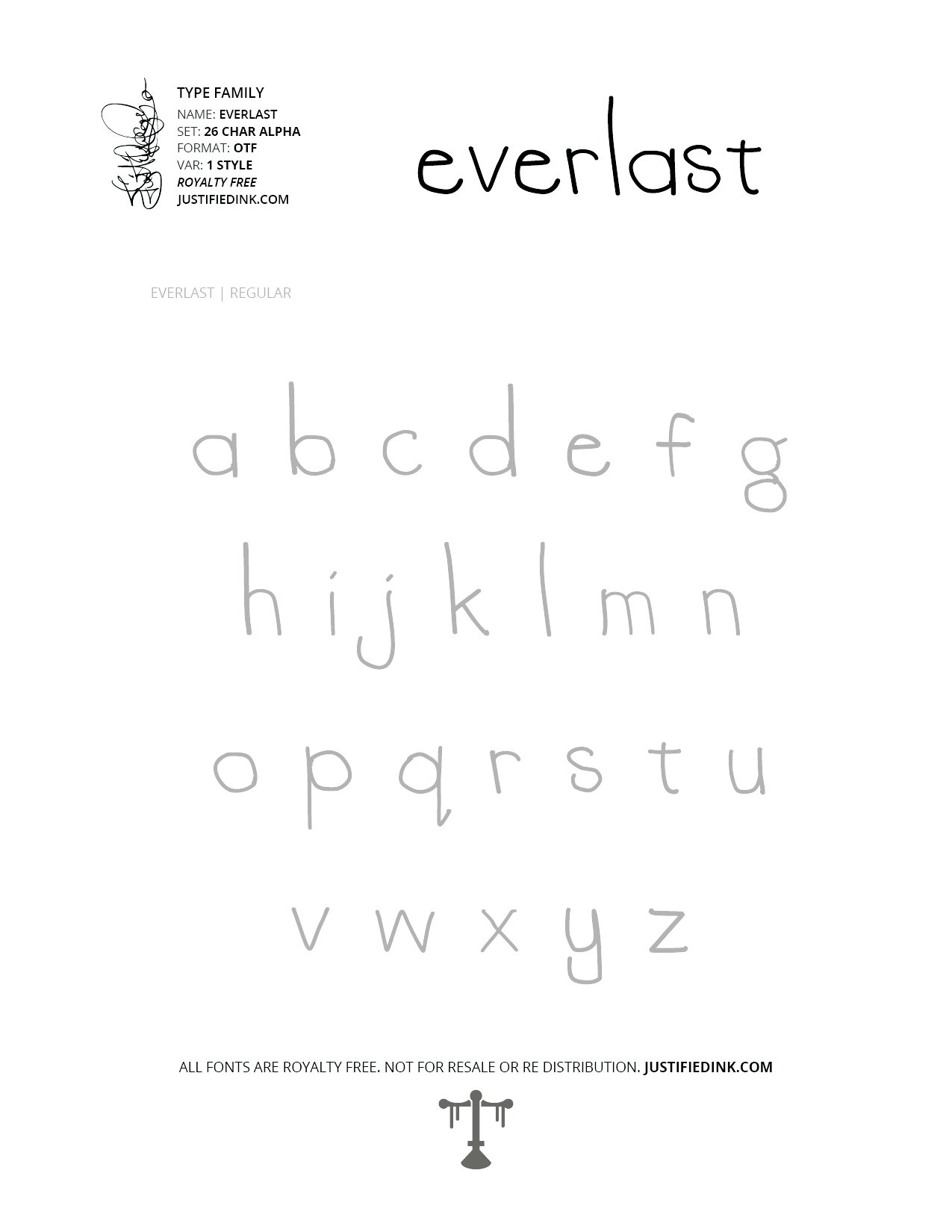
Everlast (1 style) - Custom Font by Justified Ink
NAME: Everlast
Everlast is simply the act of not giving up. Everlast is that indie spirit, the forever underdog who gets back up every time theyre knocked down.
This font is part of the collection by Justified Ink, called Blackletter III. After 15+ years creating, I began to focus on building personal libraries of my work. Blackletter III is yet another amazing collection of 30 handmade fonts. Building off of the work done to create Blackletter II, this collection is specialized where it was created digitally. This features many classic styles such as gothic, fraktur, beneventan, and uncial. Additionally, this collection contains several other styles drawn from graffiti, hiphop, and indie type styles. It comes in a full set of 26 char alpha. Each font family has variations in styles and/or non-alpha chars.